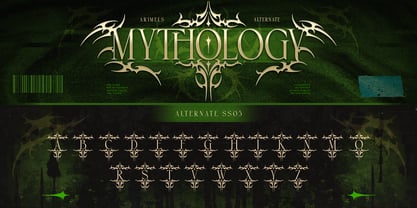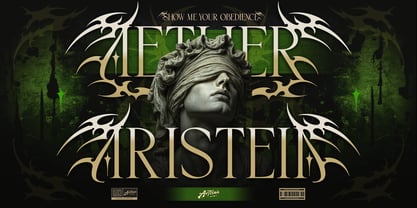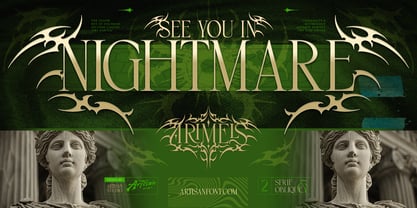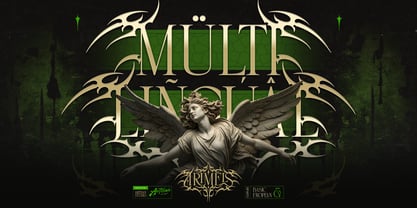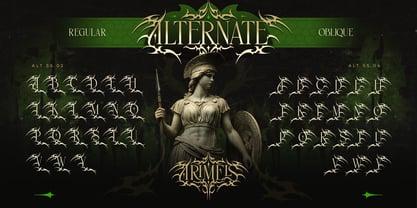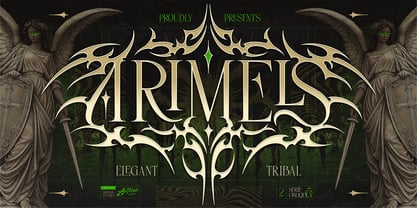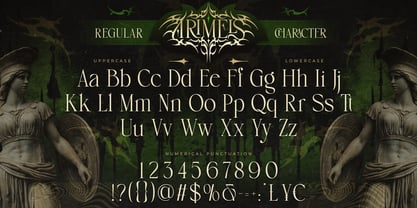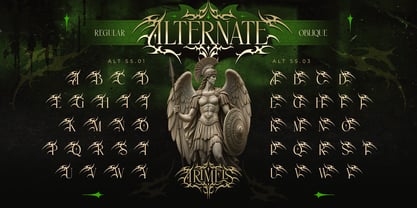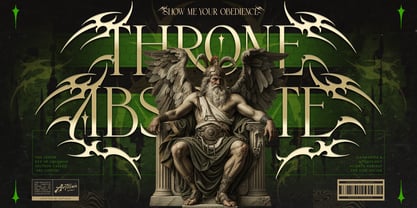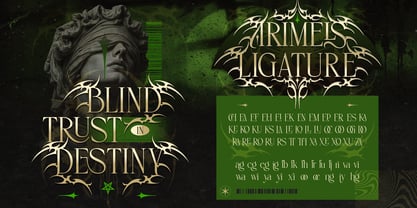
Arimels
by Artisan Themes
The Arimels Font Family was designed by Meidy Meichico and published by Artisan Themes. Arimels contains 2 styles and family package options. More about this family
Arimels is an elegant serif typeface with bold tribal ornamental details. The letterforms combine classic serif structure with sharp, thorn-like flourishes that extend from the strokes, giving each letter a striking, decorative silhouette — perfect for designs that need a strong, dramatic presence.
This font comes in 2 styles: Regular and Oblique, giving you flexibility to mix elegance with dynamic movement. Every letter is crafted with intricate tribal detailing, making Arimels ideal for logos, album covers, apparel, and any project that needs gothic touch.